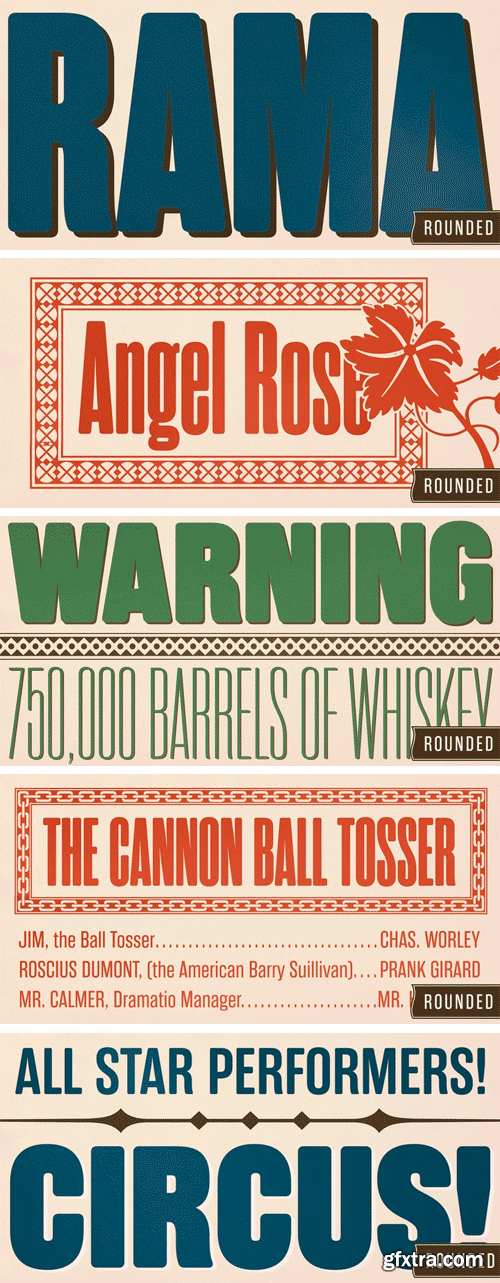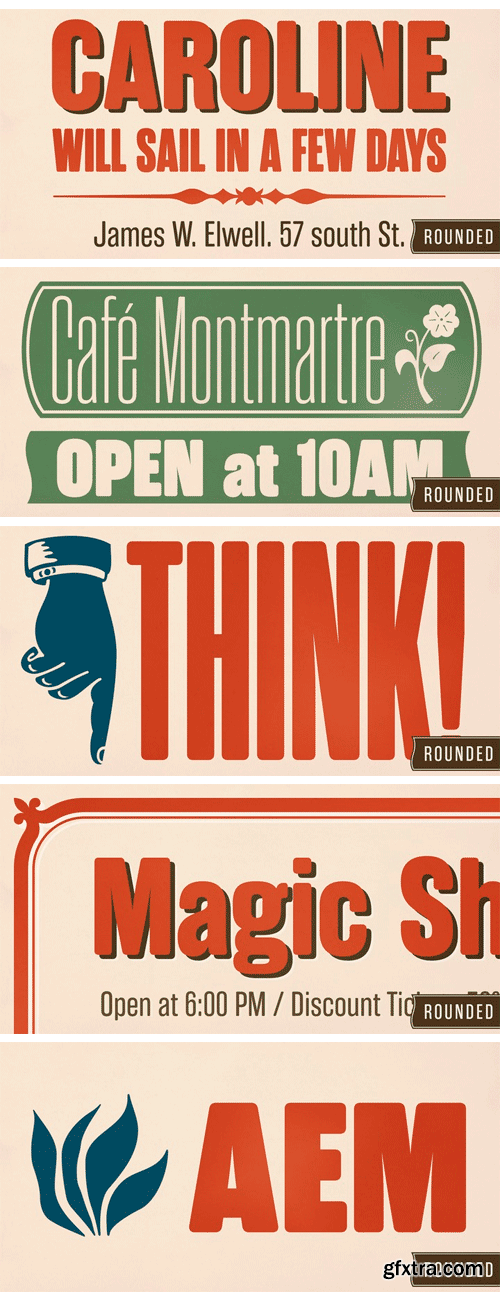
Rama Gothic Rounded
Rama Gothic Rounded is an antiqued sans serif designed inspired by 1800s-style wood type. All glyphs had been designed carefully to be retro-looking of the old time and to fill all with nostalgia. This condensed font family with 18 styles will be the best solution for posters, titles and anywhere you need impact.